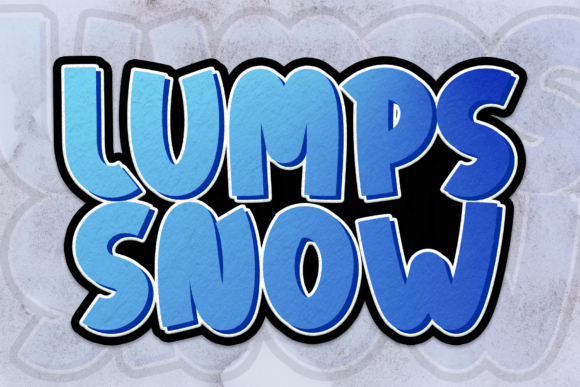
Behold the Lumps Snow Font, a jolly display font brimming with holiday charm. Created by the ingenious William Jhordy, Lumps Snow dances across your designs like snowflakes on a crisp winter's day.
With its plump, cheerful characters, this font radiates a sense of warmth and delight. It's perfect for capturing the magic of the season in your Christmas greetings, invitations, and festive branding.
Lumps Snow is a versatile font that can transform any project into a winter wonderland. Whether you're designing gift tags, creating social media posts, or simply spreading holiday cheer, this font will add a touch of magic to your creations.
Imagine your Christmas cards adorned with Lumps Snow's playful letters, each stroke evoking the joy and anticipation of the season. Your designs will sparkle with the enchantment of a snowy morning, inviting your audience into a world of festive wonder.
Lumps Snow is more than just a font; it's a design tool that unlocks your creativity. Its whimsical style will ignite your imagination, inspiring you to create captivating designs that capture the spirit of the holidays.
So, embrace the magic of Lumps Snow and let your designs dance with the joy of the season. Download this delightful font today and spread holiday cheer with every project you create!